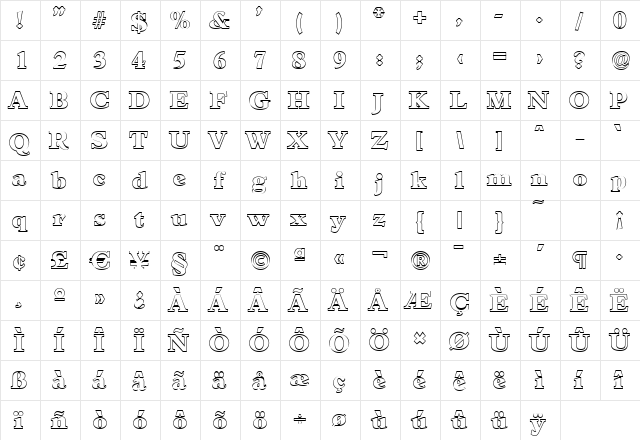
ColinBeckerOutline-Heavy Regular Font Preview
ColinBeckerOutline-Heavy Regular
Design Context for ColinBeckerOutline-Heavy Typeface
ColinBeckerOutline-Heavy is built around its visual character rather than neutral utility — its distinctive forms are designed to make an impression at display sizes.
Font Pairing: Pair with a clean neutral sans-serif for body copy to let ColinBeckerOutline-Heavy's character lead without overwhelming the composition.
Pro Tip: Use ColinBeckerOutline-Heavy exclusively at display sizes — it was designed to be seen, not read at length. Let a neutral companion handle body copy.